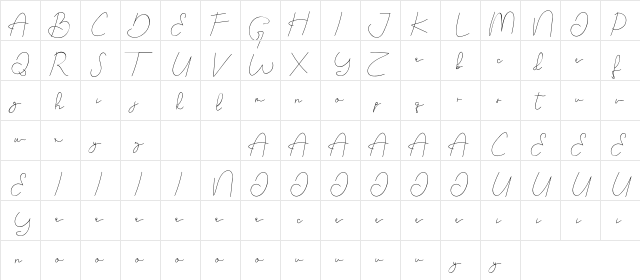
Overa Demo Regular
| Foundry | Edric Studio |
| Designer | Saila Nurissalma & Sarah Suci Pauziah |
Design Context for Overa Demo Typeface
Overa Demo is a composed and adaptable typeface that performs quietly and consistently across a wide range of design contexts.